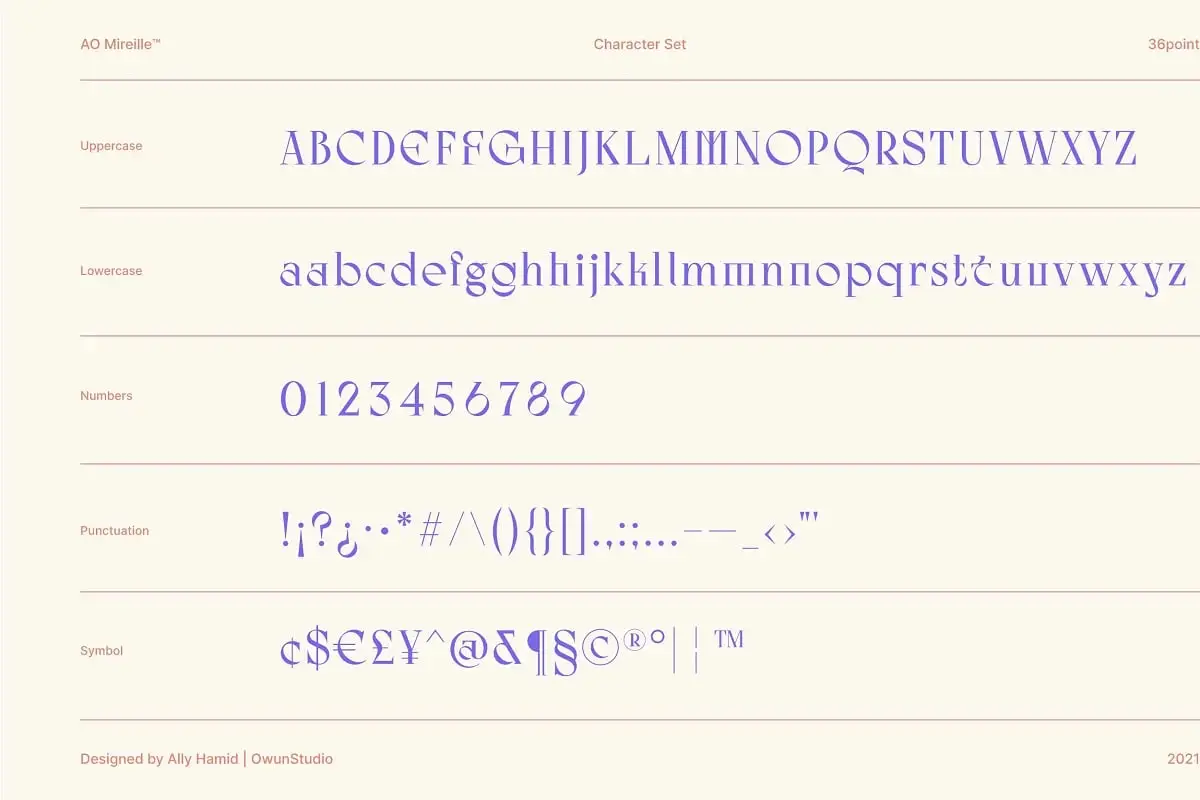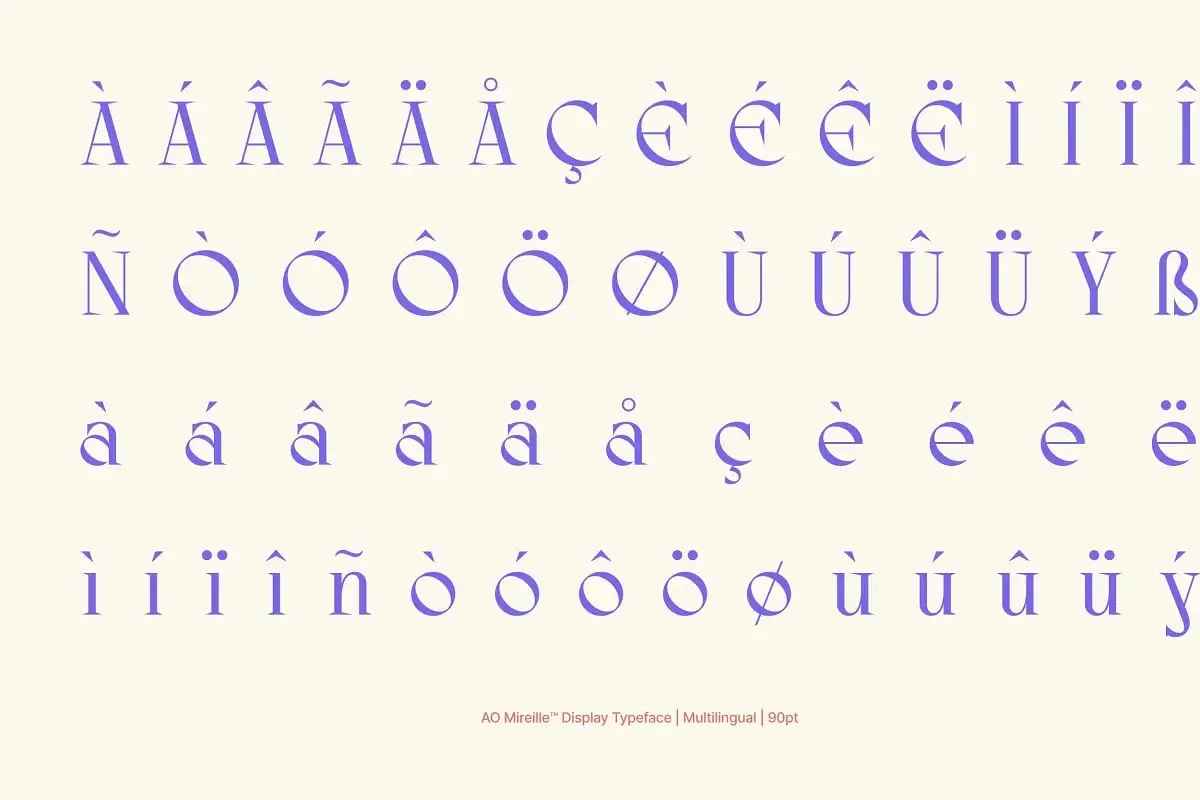
Ao Mireille-Display Typeface
Introducing the Ao Mireille Display Typeface, a beautifully crafted font designed to elevate your creative projects. This typeface features a unique blend of elegance and modernity, making it perfect for a variety of applications.
• Stylish display font with distinctive character design
• Uppercase and lowercase letters, numerals, and punctuation
This typeface is ideal for branding, logos, posters, and any project that requires a touch of sophistication. Its striking appearance makes it suitable for both print and digital media.